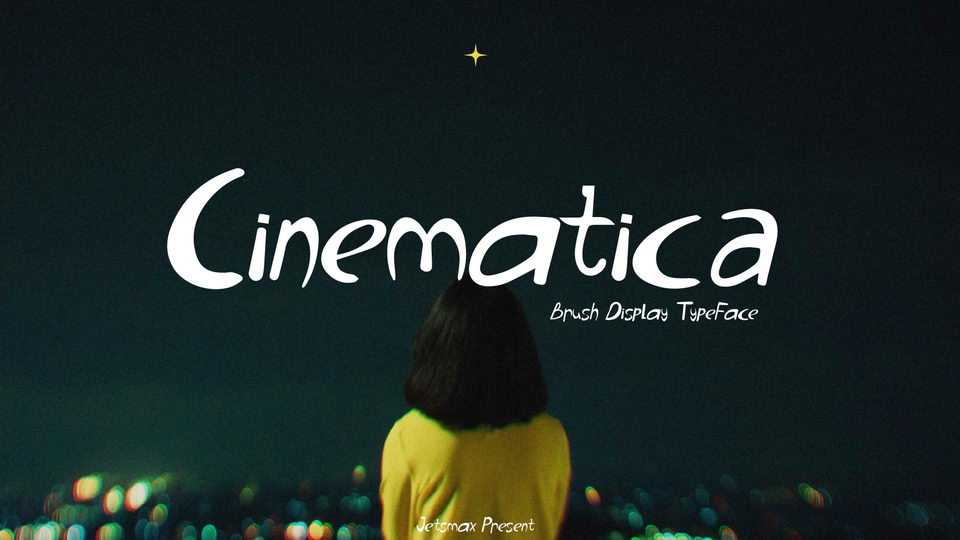
Cinematica Font › Fontesk – Fonte Grátis
Download Cinematica font, a typeface with a lively theme. Cinematica is inspired by the therapeutic feeling in every great cinematic moments that we all get after watching a good movie.
Designer: Jetsmax Studio